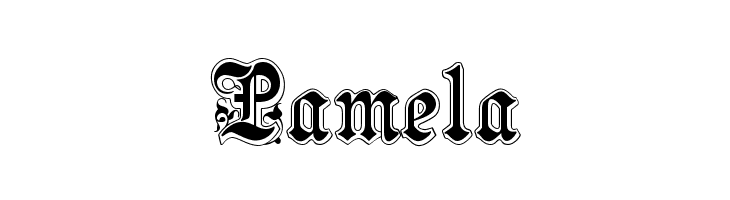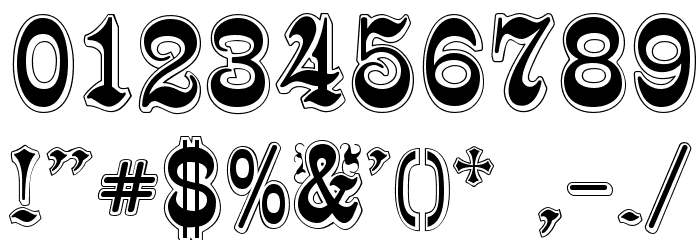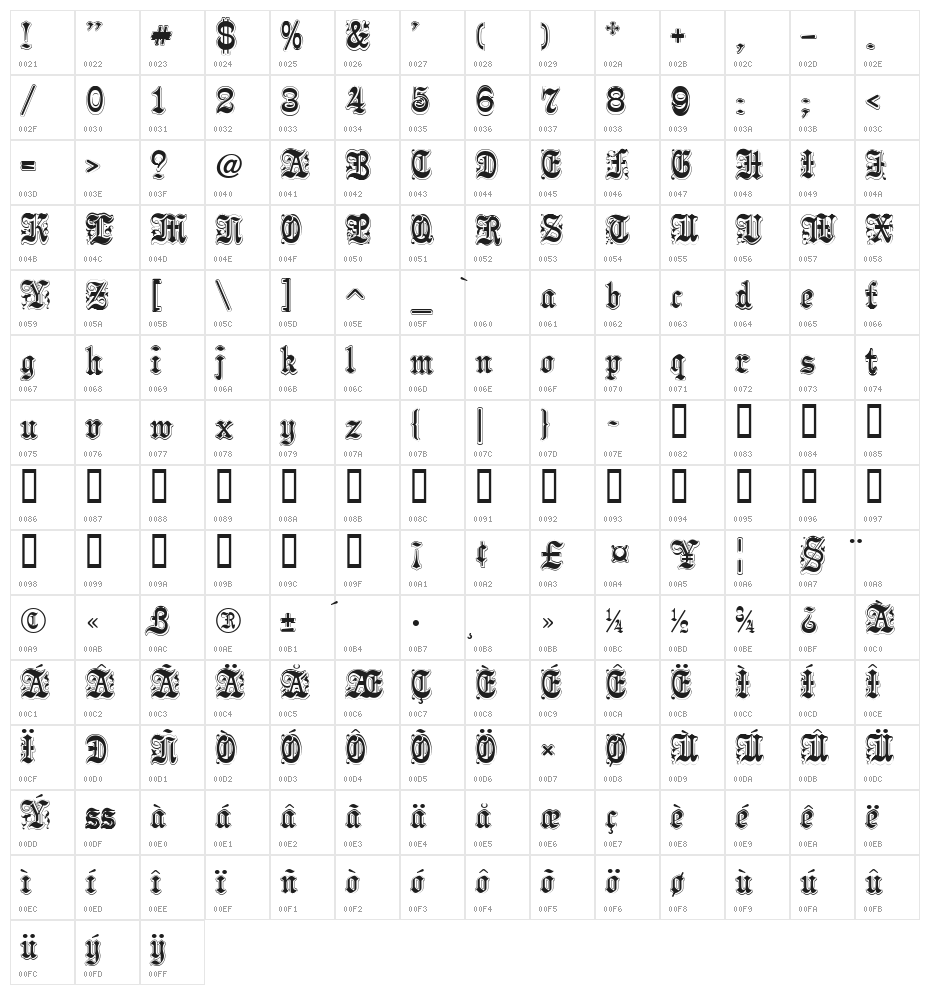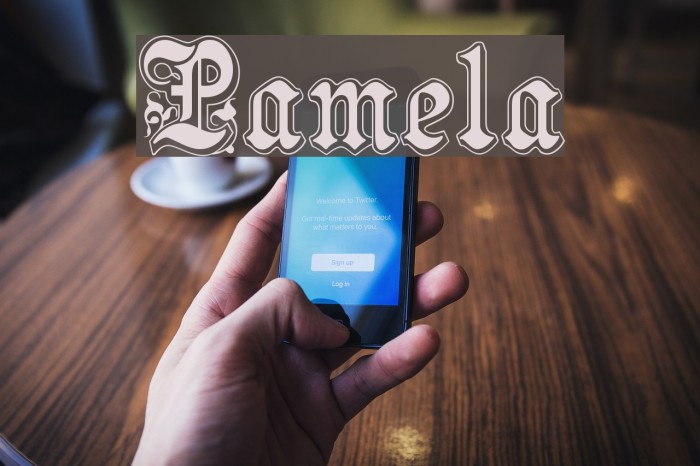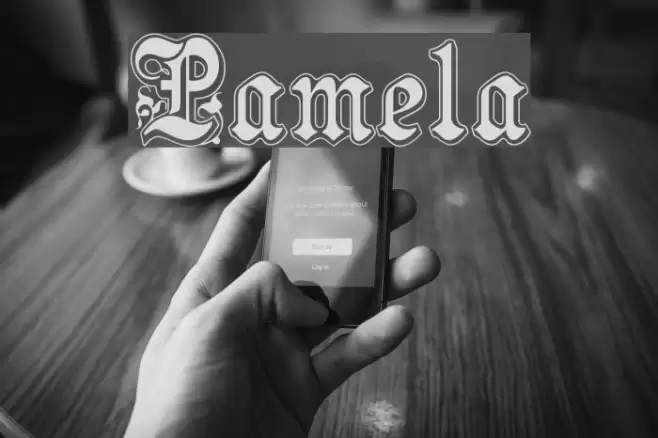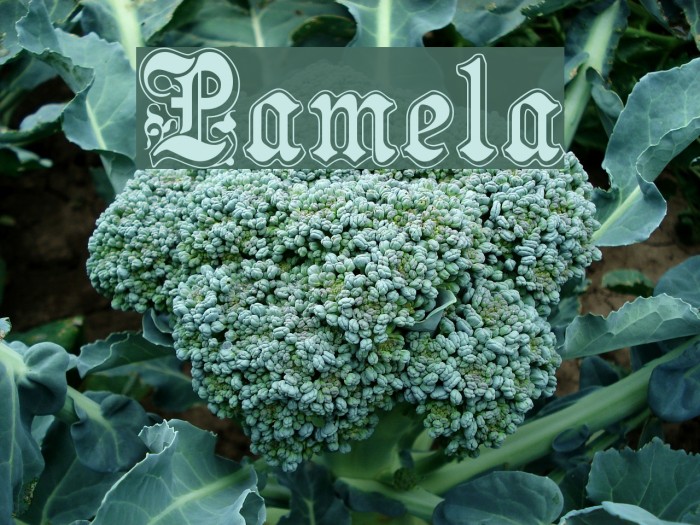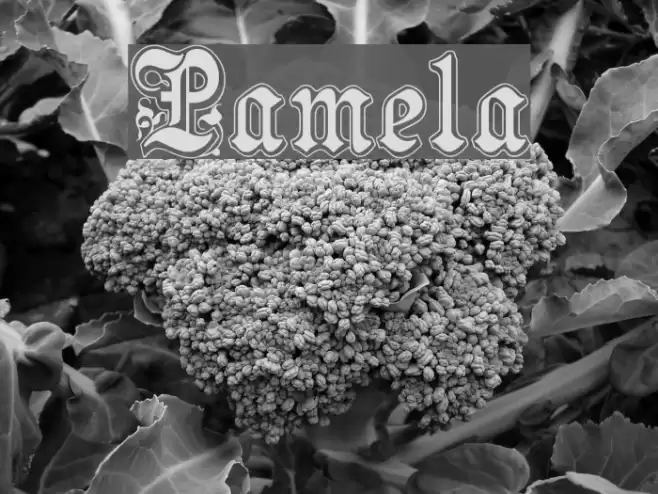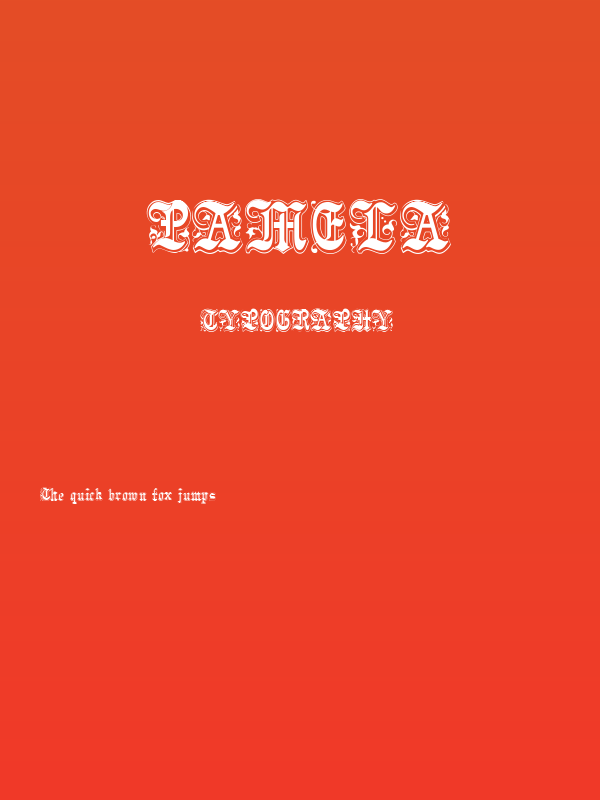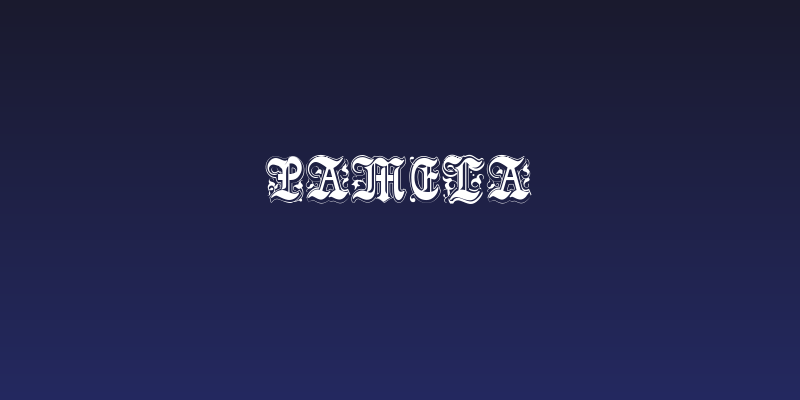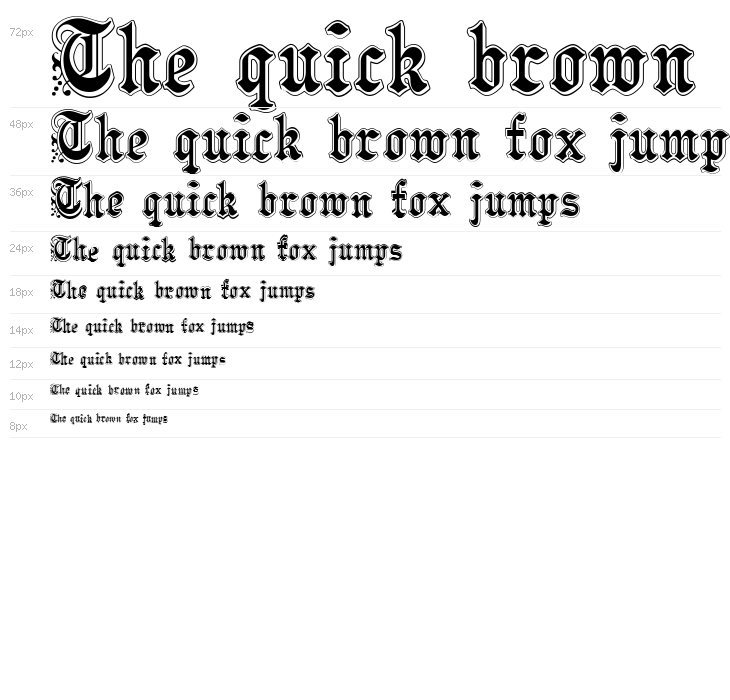
Pamela Font
Pamela Description
This font exhibits a classic blackletter style, characterized by its intricate and ornate design. The letters are bold and feature sharp, angular lines with decorative flourishes, giving it a distinctly medieval appearance. The uppercase letters are particularly elaborate, with additional embellishments that enhance their gothic aesthetic. The lowercase letters maintain the same stylistic elements but are slightly more subdued in their ornamentation. Numbers and special characters are consistent with the overall theme, providing a cohesive look across all glyphs. This font is ideal for projects that require a historical or traditional touch, such as invitations, certificates, or branding that seeks to convey a sense of heritage and sophistication.
| Proposed Projects | Ideal for historical documents, wedding invitations, certificates, and branding that requires a traditional or gothic aesthetic. |